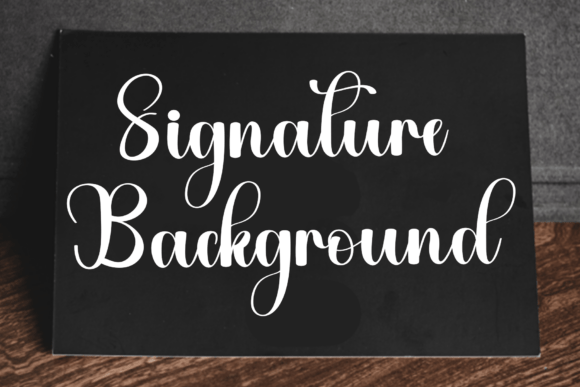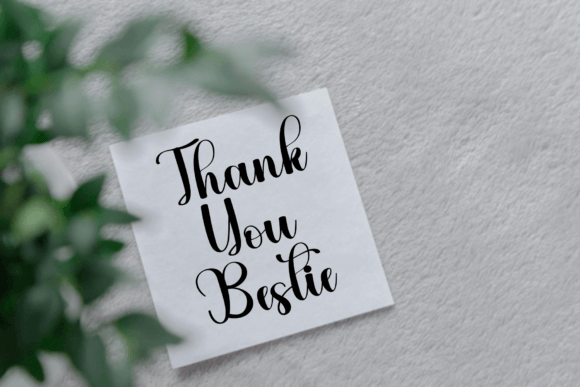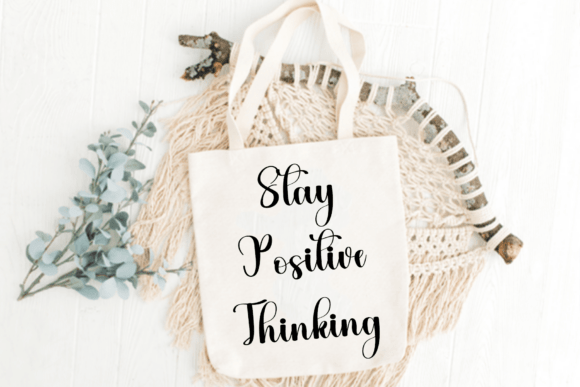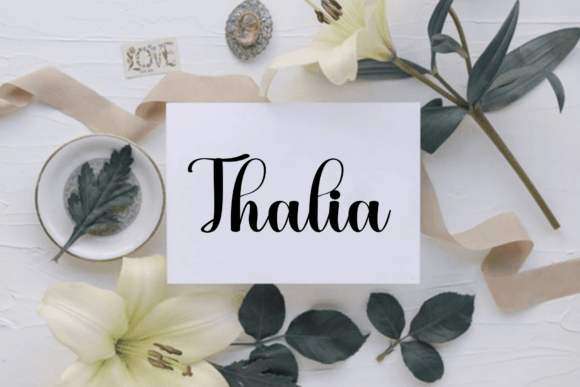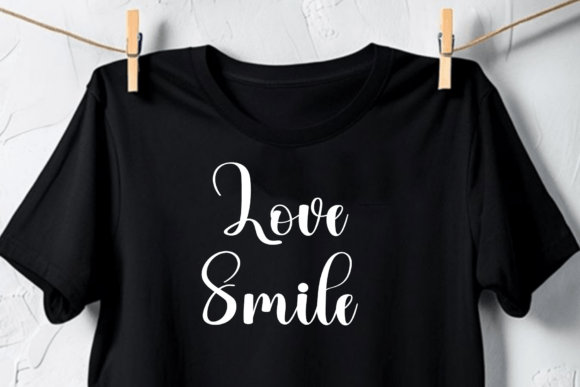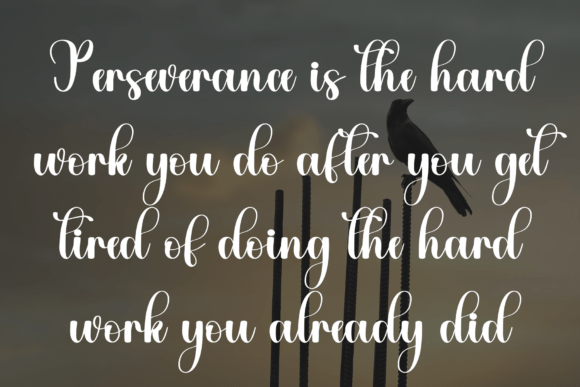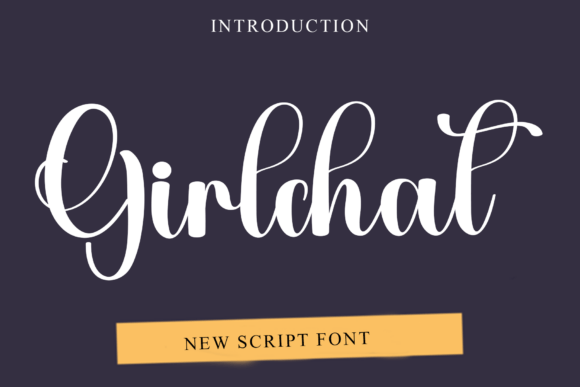
Discover the Delightful Girlchat Font: Adding a Touch of Warmth and Friendliness to Your Designs
In the world of typography, fonts play a crucial role in conveying the tone and personality of a design. For those seeking a font that embodies warmth, friendliness, and a dash of playfulness, Girlchat Font is an excellent choice. This casual and creative font is perfect for designers, crafters, and anyone looking to add a personal touch to their projects.
The Characteristics of Girlchat Font
Girlchat Font boasts round, playful strokes that create a relaxed and approachable feel. Its charming, hand-drawn aesthetic adds a fun and unique touch to any design, making it ideal for personal projects, invitations, social media graphics, and more. The font’s distinctive style is sure to capture the attention of your audience and leave a lasting impression.
Key Features of Girlchat Font
- Casual and Creative: Girlchat Font is designed to add a touch of warmth and friendliness to your designs. Its casual and creative style makes it perfect for a wide range of applications.
- Round and Playful Strokes: The font’s round, playful strokes create a relaxed and approachable feel, making it ideal for designs that require a personal touch.
- Hand-Drawn Aesthetic: Girlchat Font features a charming, hand-drawn aesthetic that adds a fun and unique touch to any design.
Uses of Girlchat Font
Girlchat Font is a versatile font that can be used in a variety of applications, including:
- Personal Projects: Add a personal touch to your personal projects, such as scrapbooking, card making, and journaling.
- Invitations: Create beautiful and unique invitations for special occasions, such as birthdays, weddings, and baby showers.
- Social Media Graphics: Use Girlchat Font to create engaging and eye-catching social media graphics, such as Facebook posts, Instagram stories, and Twitter headers.
- Branding and Packaging: Add a touch of warmth and friendliness to your brand’s packaging and marketing materials.
Tips for Using Girlchat Font
To get the most out of Girlchat Font, here are a few tips to keep in mind:
- Pair with Other Fonts: Experiment with pairing Girlchat Font with other fonts to create a unique and visually appealing design.
- Use in Headings and Titles: Use Girlchat Font in headings and titles to add a touch of personality and whimsy to your design.
- Adjust Font Size and Color: Experiment with different font sizes and colors to add depth and visual interest to your design.
Girlchat Font is a delightful and versatile font that is sure to add a touch of warmth and friendliness to your designs. Its casual and creative style, combined with its charming, hand-drawn aesthetic, make it perfect for a wide range of applications. Whether you’re a designer, crafter, or simply looking for a font to add a personal touch to your projects, Girlchat Font is an excellent choice.